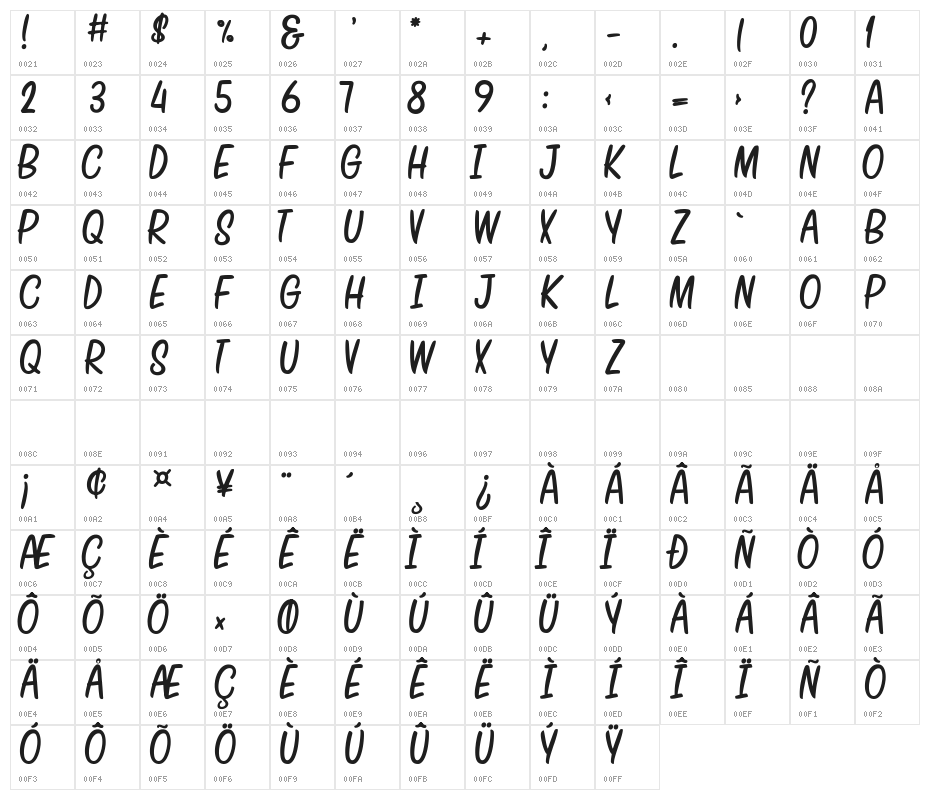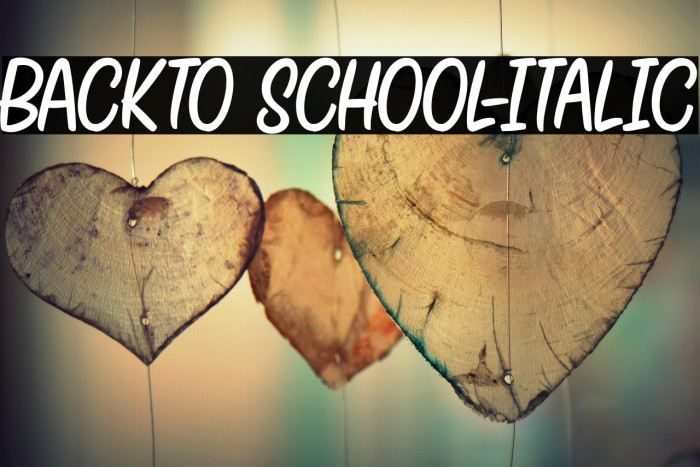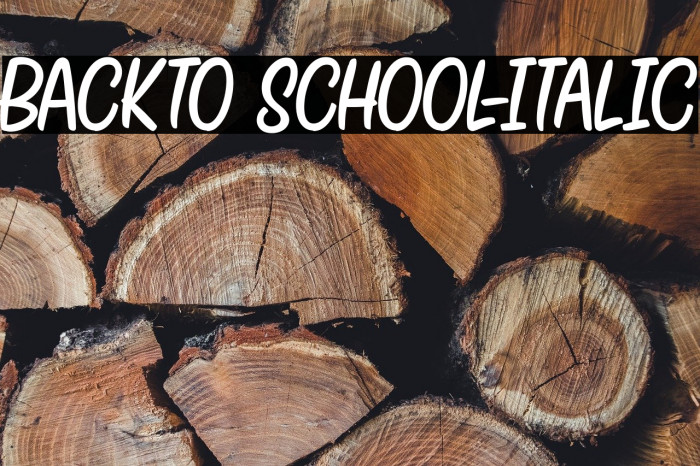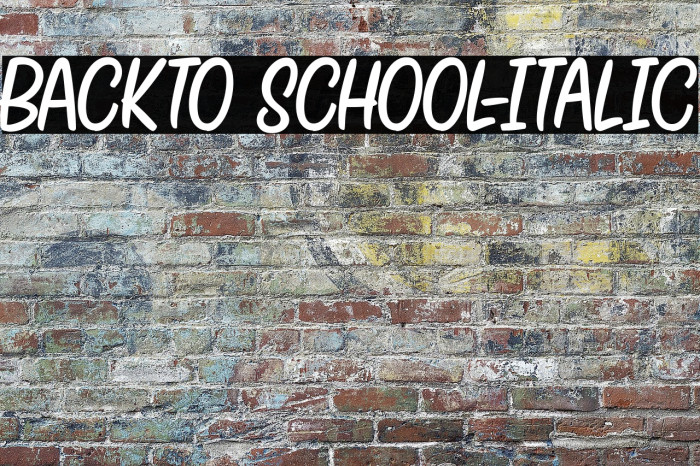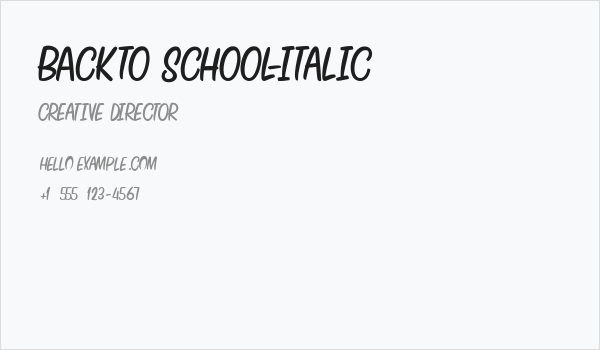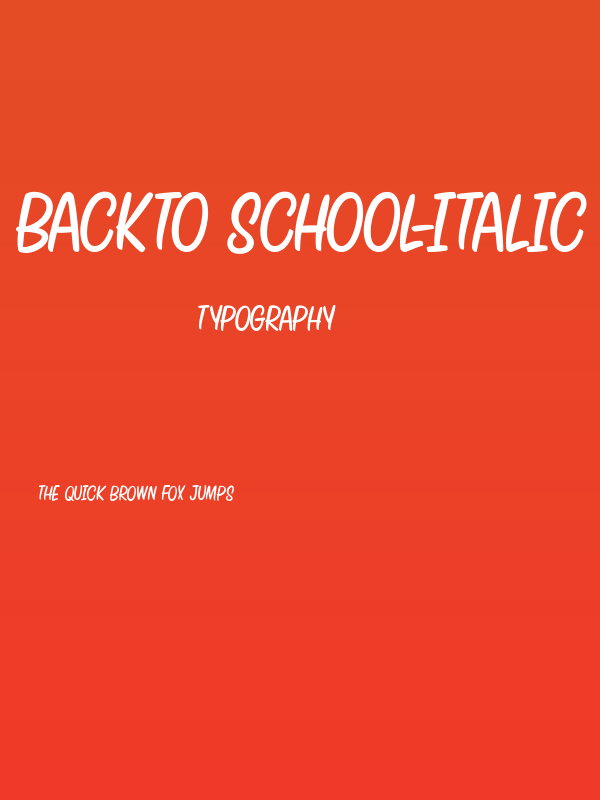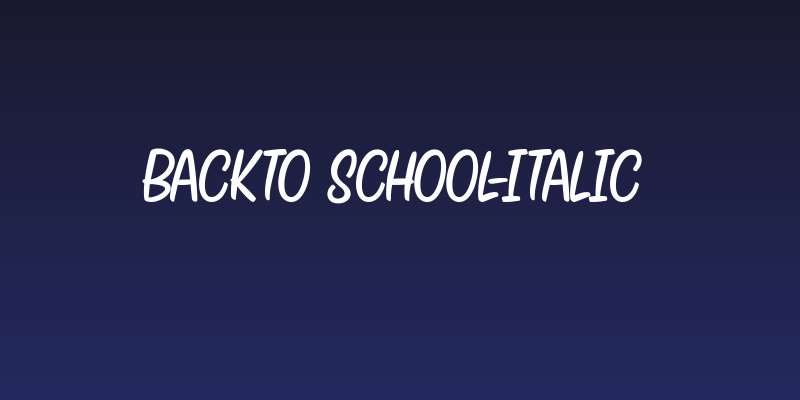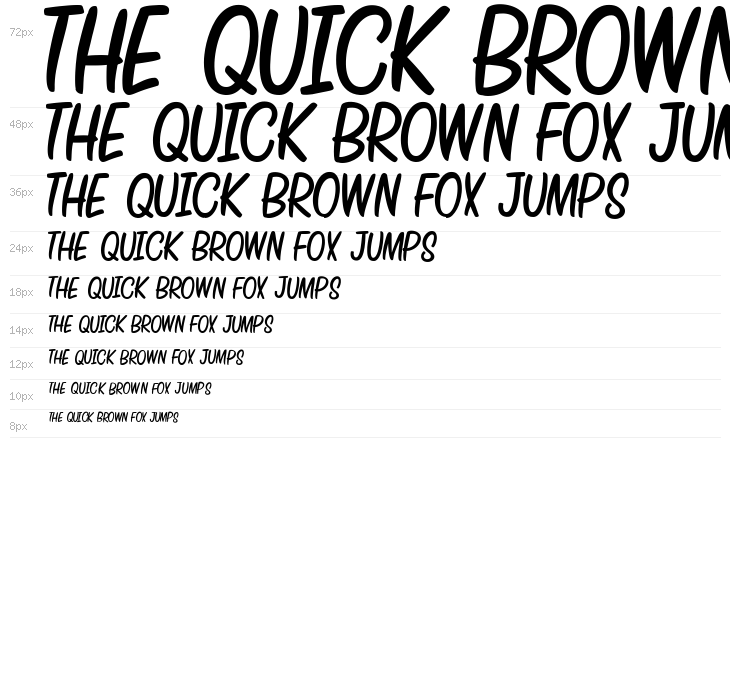
BACKTO SCHOOL-Italic Font
BACKTO SCHOOL-Italic Description
This font features a playful and energetic style with a handwritten appearance. The letters are slightly slanted, giving it an italicized look that adds a sense of motion and dynamism. The strokes are bold and rounded, contributing to a friendly and approachable feel. The characters are well-spaced, ensuring readability while maintaining a casual and informal vibe. This font is versatile, suitable for projects that require a personal touch or a youthful, fun aesthetic.
| Proposed Projects | Ideal for children's book covers, school-themed posters, casual invitations, and playful branding. |